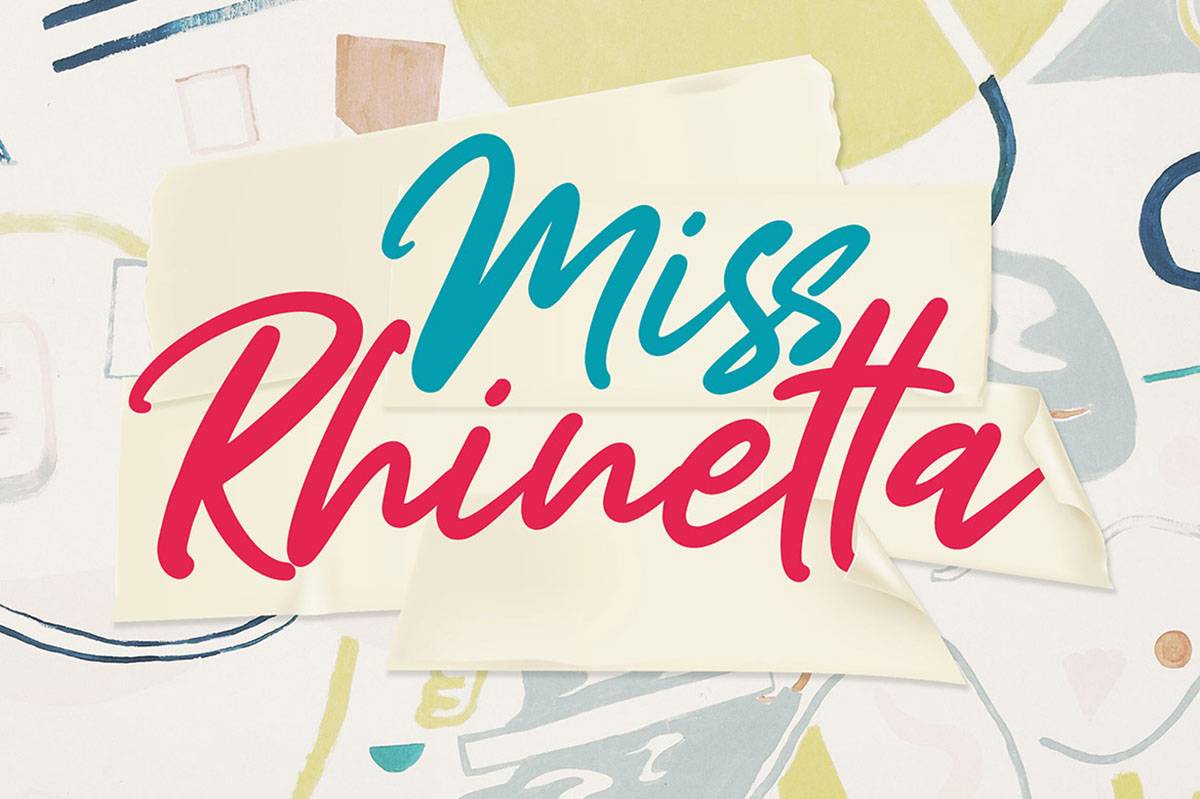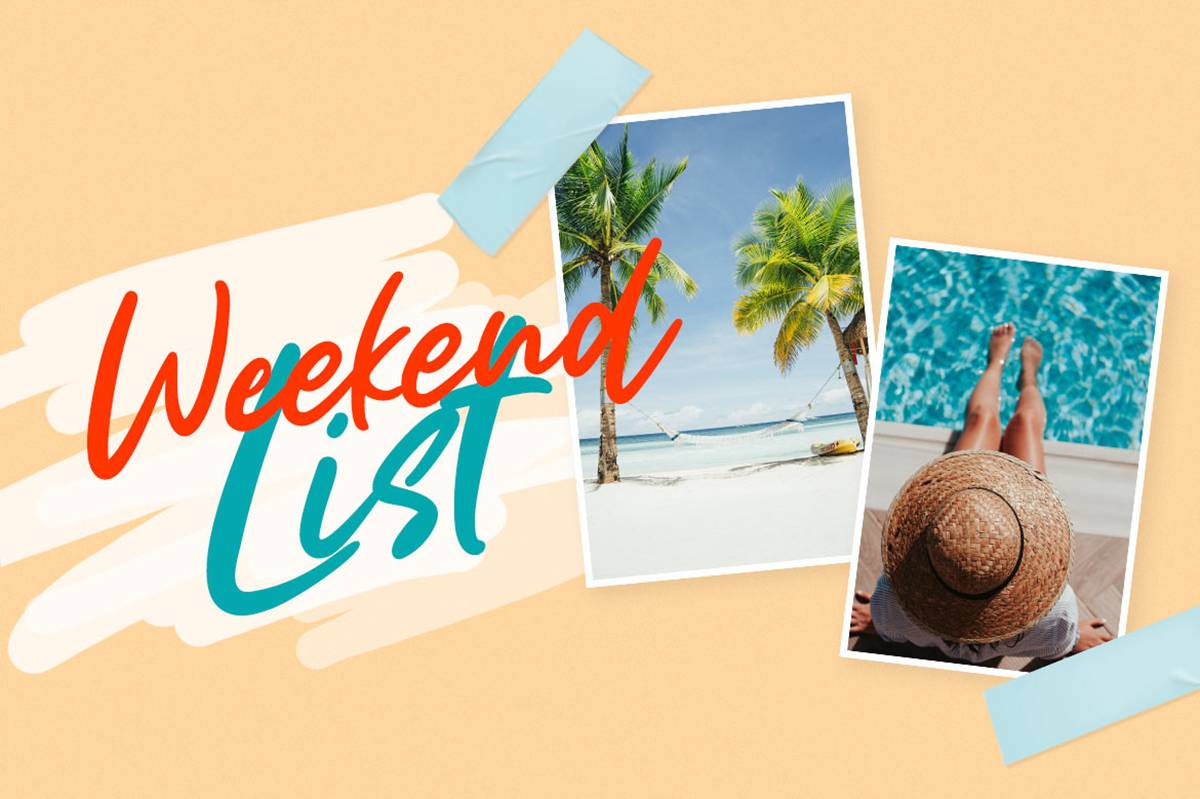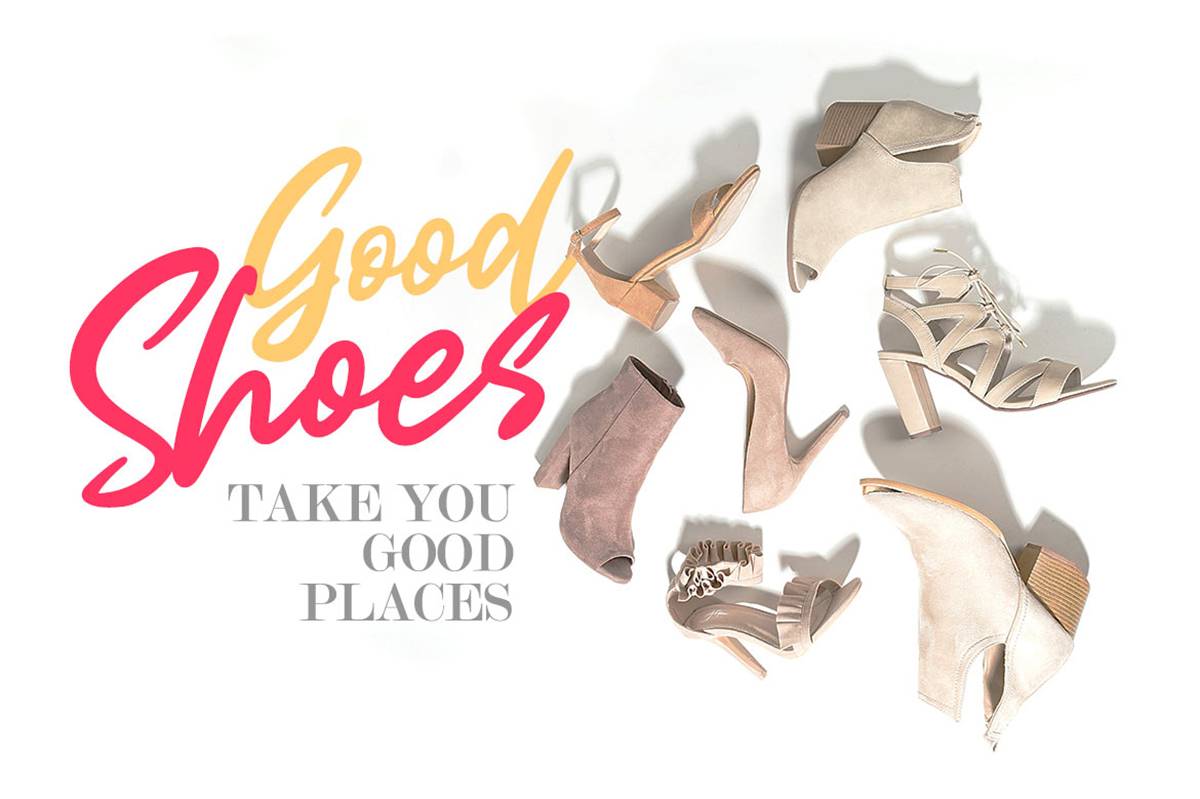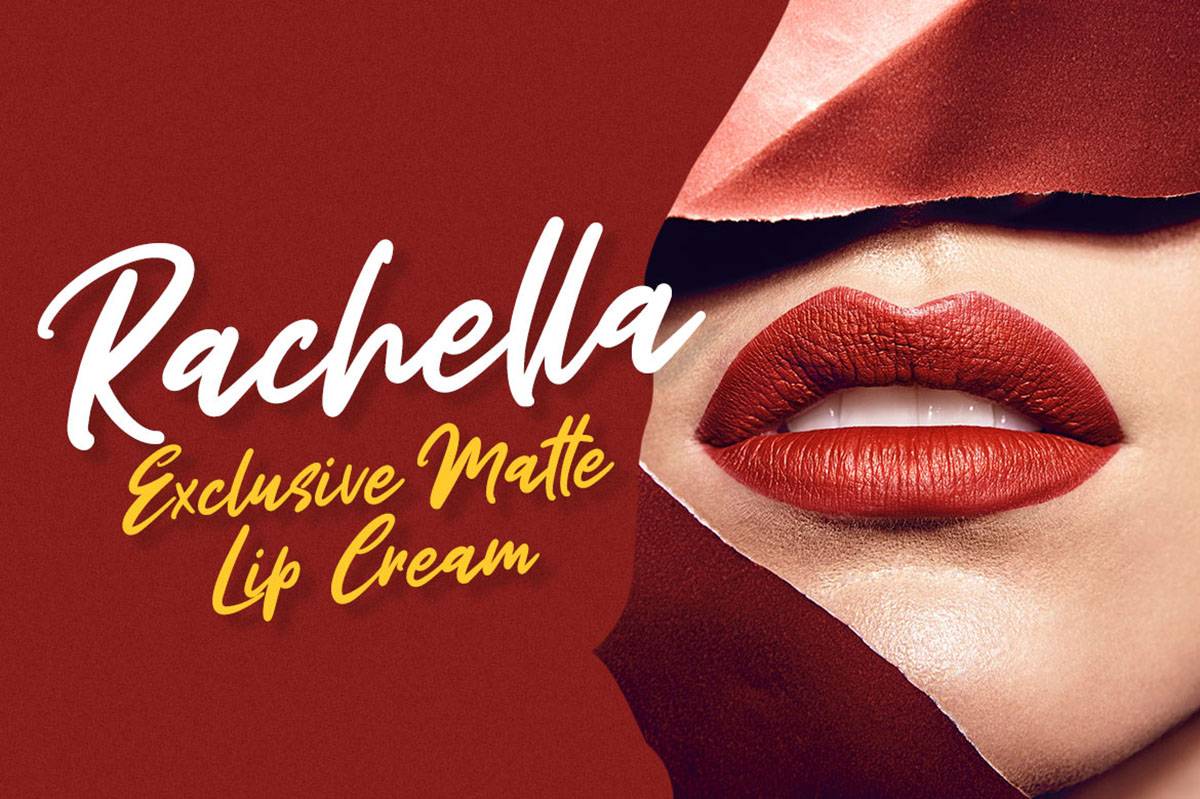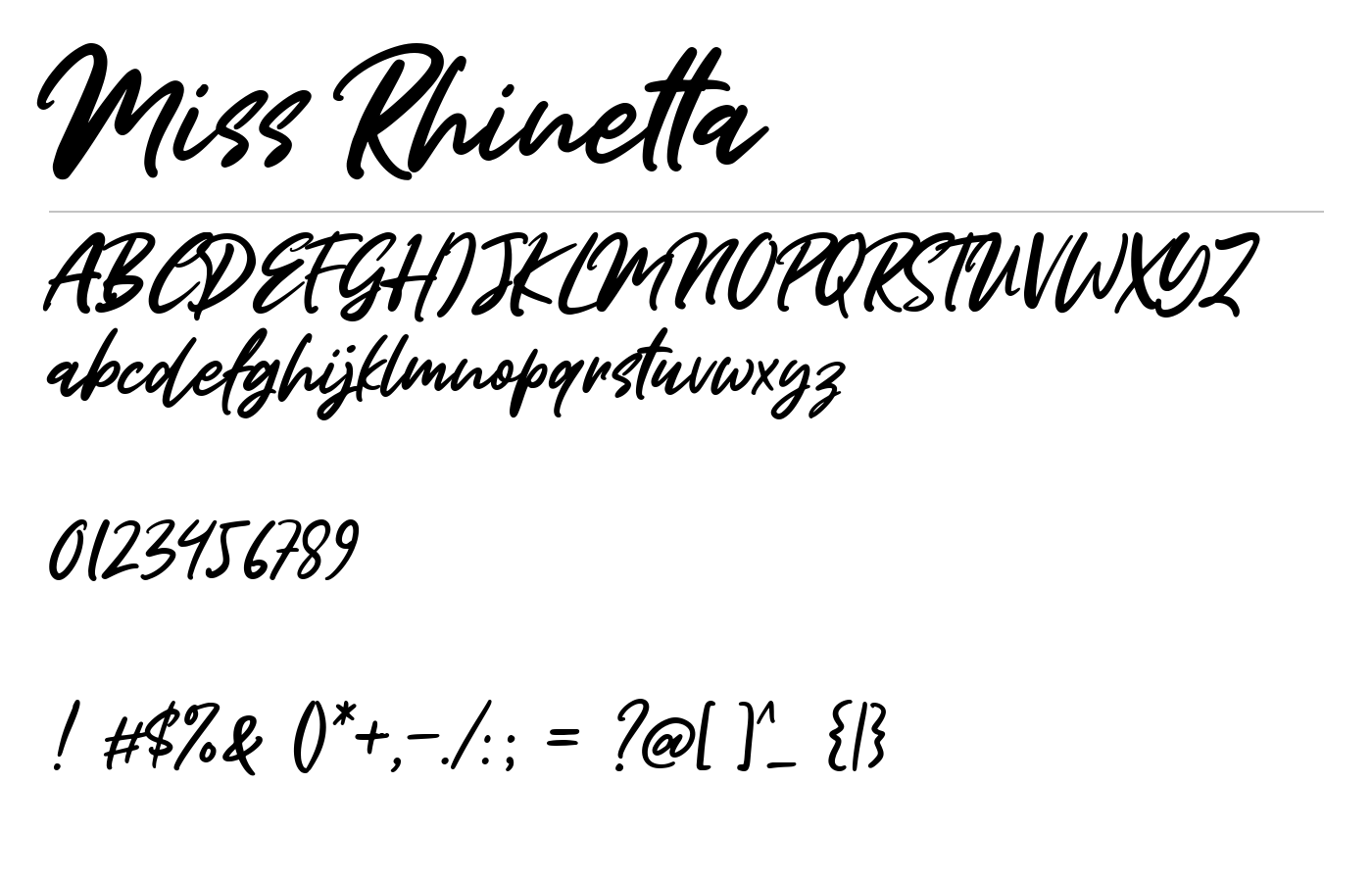
Miss Rhinetta is a lively and elegant script font with a casual, handwritten feel that captures personality and charm. Its fluid strokes and smooth connections make it ideal for creative projects, adding a friendly yet refined touch perfect for branding, invitations, and playful editorial designs. This font shines in settings where a personal, approachable style is desired, combining both readability and expressive flair.
Miss Rhinetta Font
About Miss Rhinetta Font
| Font family | Miss Rhinetta Font |
| Designer | Weape Studio |